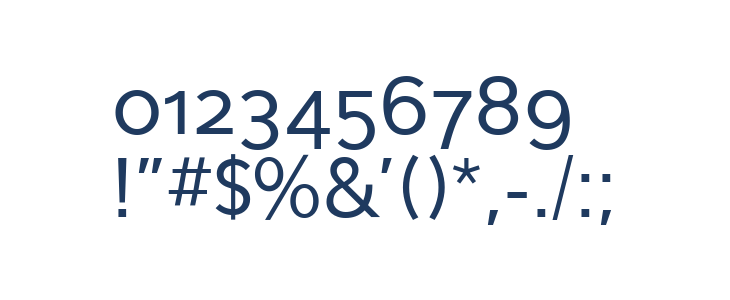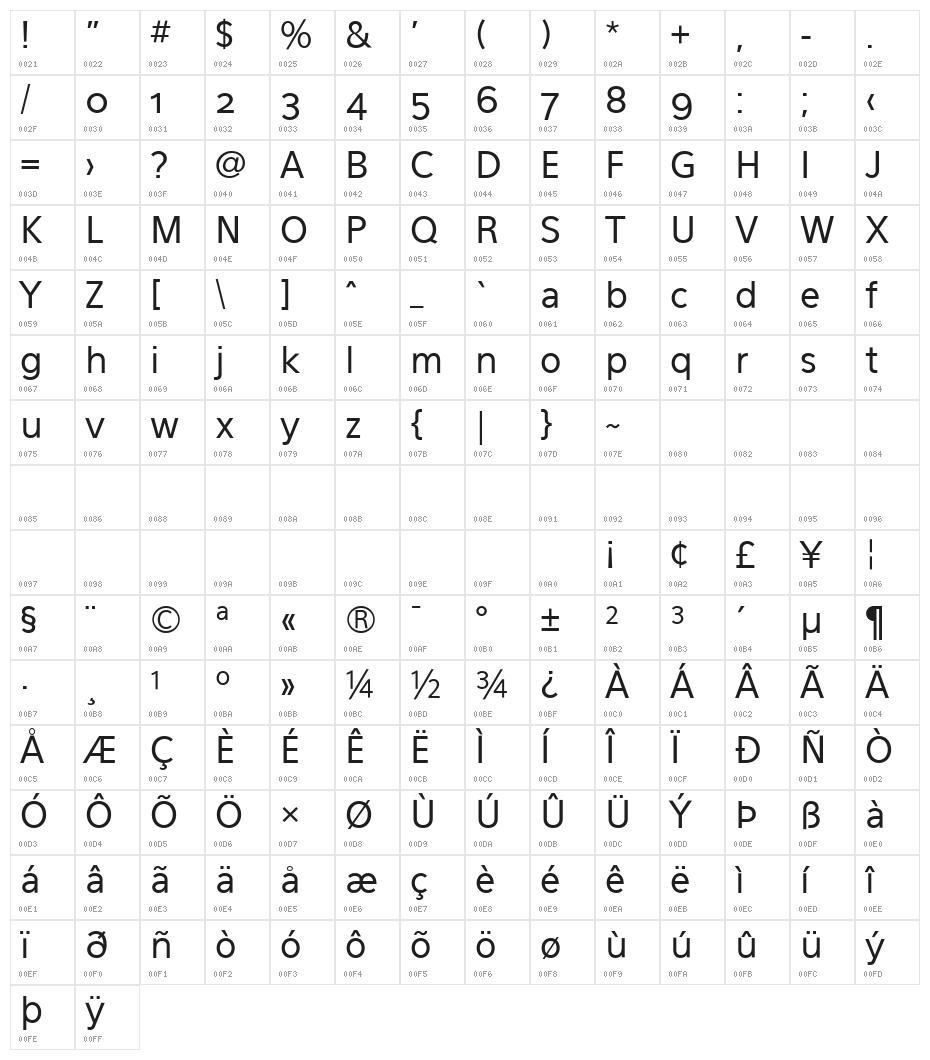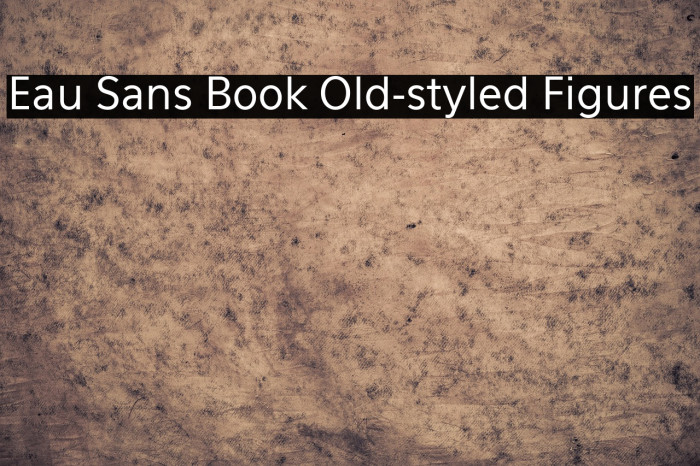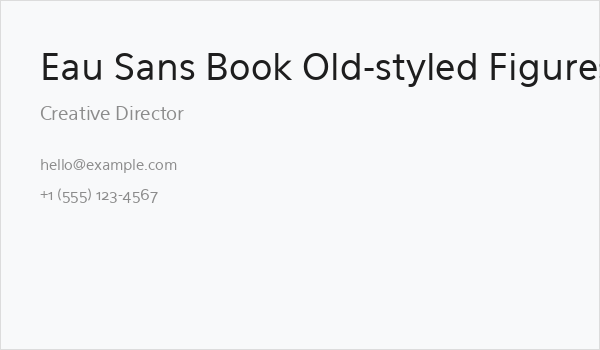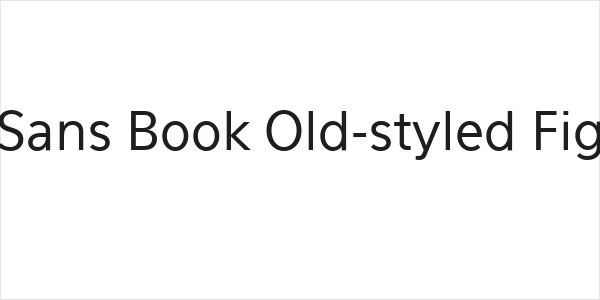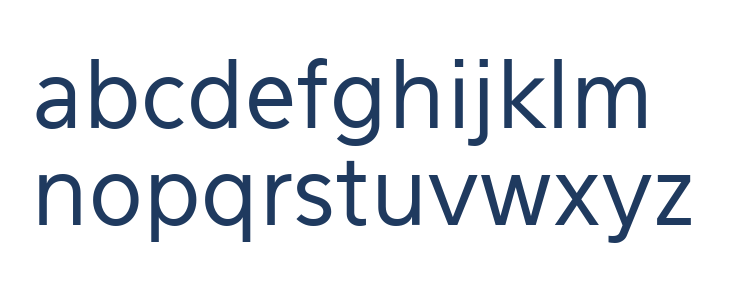
Eau Sans Book Old-styled Figures Font
Eau Sans Book Old-styled Figures Description
This typeface embodies a clean and modern aesthetic, characterized by its sans-serif design. The letters are evenly weighted, providing a balanced and harmonious appearance. The uppercase and lowercase characters are well-proportioned, with a consistent stroke width that enhances readability. The numerals are clear and distinct, making them suitable for various applications. Special characters are included, maintaining the font's cohesive style. Overall, this font is versatile, offering a contemporary look that can be adapted to numerous design projects.
| Proposed Projects | Ideal for branding, web design, editorial layouts, and corporate materials. |